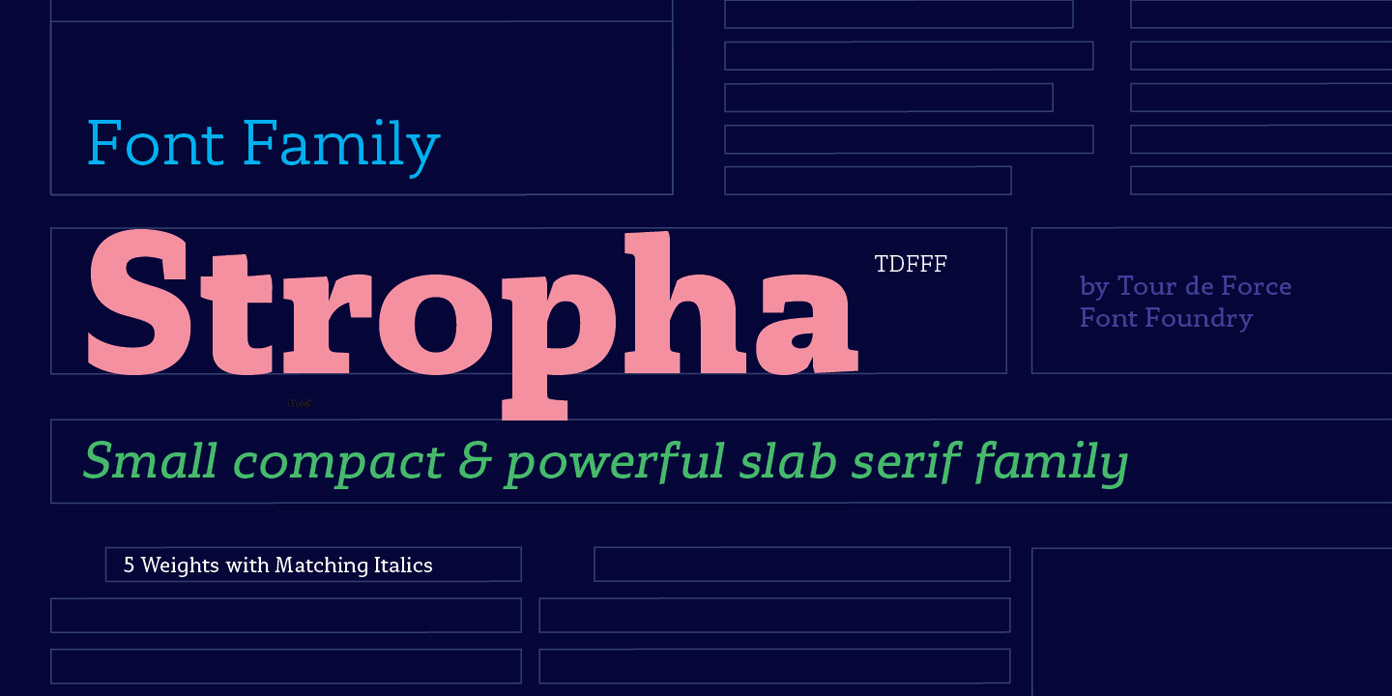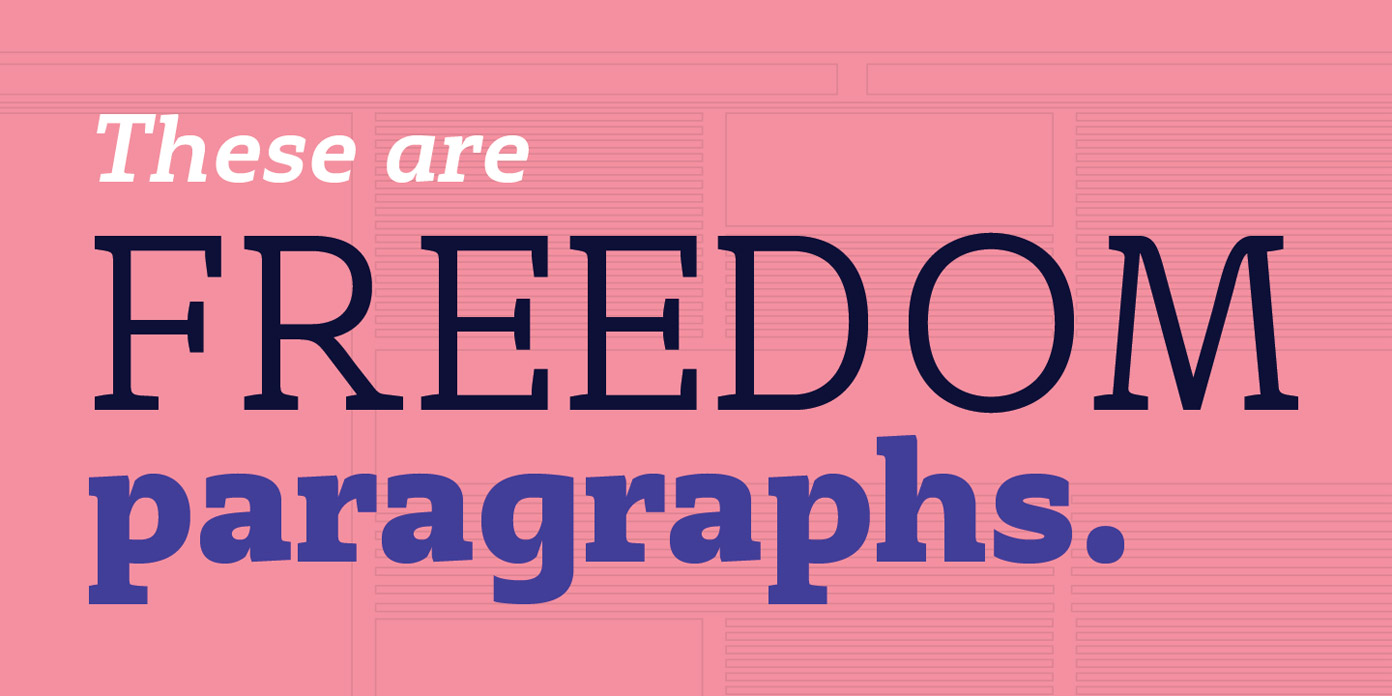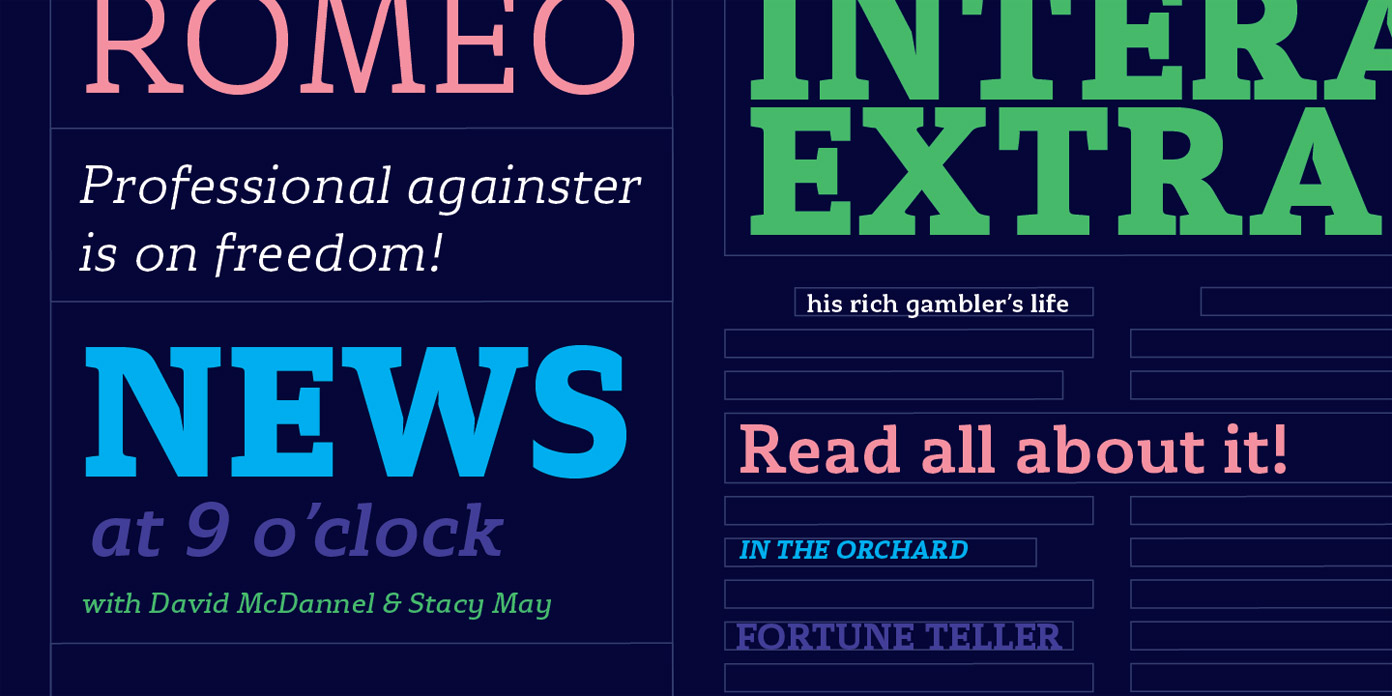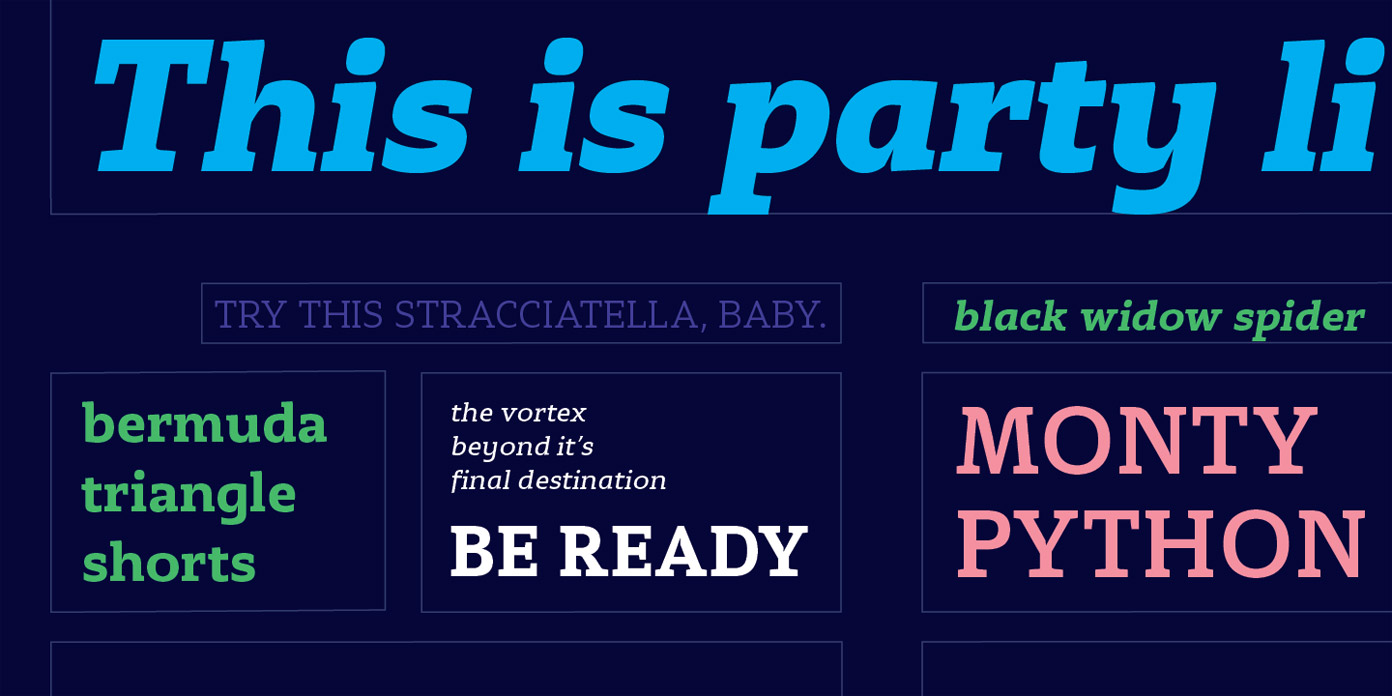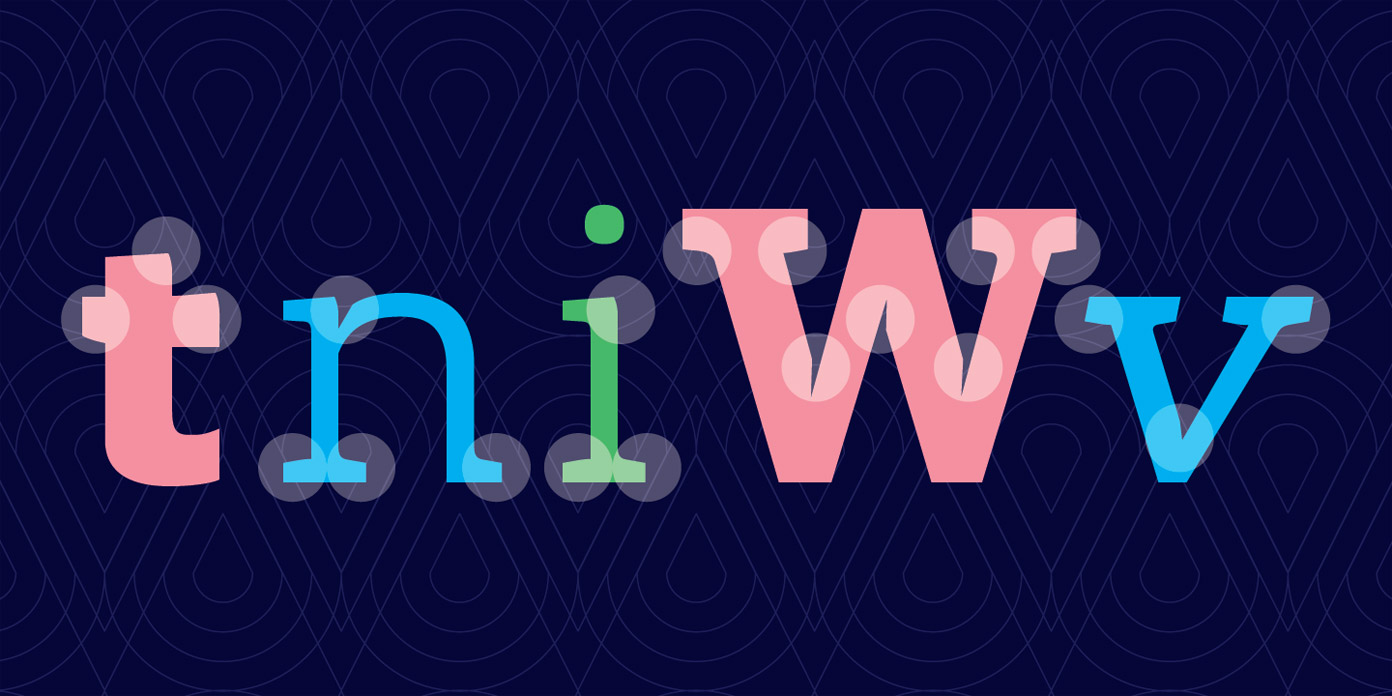
Stropha, a compact slab serif font family for various purposes.
Designed by Dusan Jelesijevic for Tour de Force Font Foundry, Stropha is a new slab-serif font family that comes in 5 weights plus matching Italics for each style. The typeface is characterized by distinctive differences between all letter stems. Stropha was made for different purposes such as editorial use or branding projects. The typeface provides characteristic serifs with deep ink traps, curvy top diagonal endings, and gentle curvy touches in its details. It contains an extended Latin character set. For further information, just follow the link below.